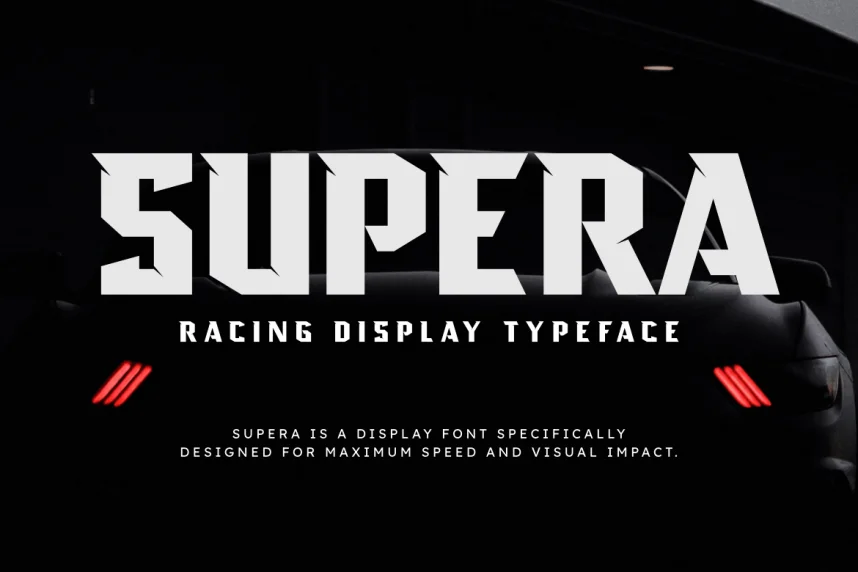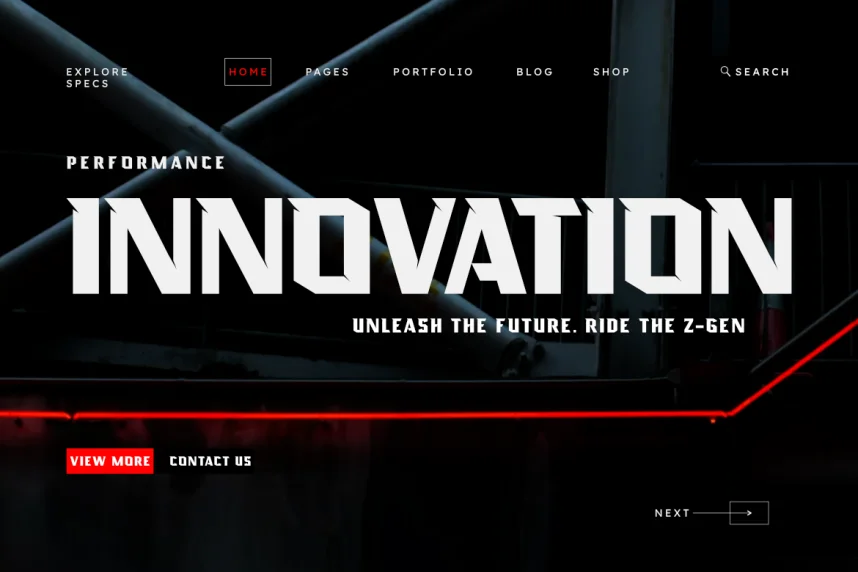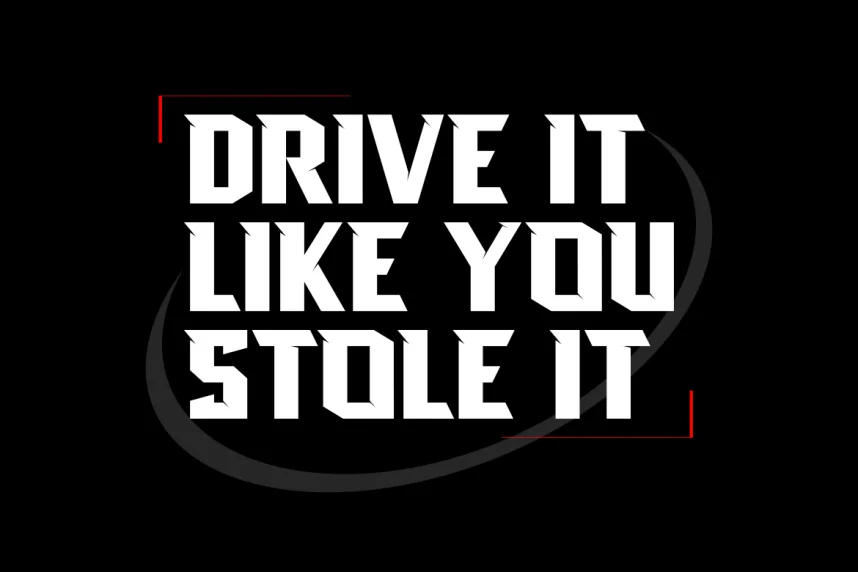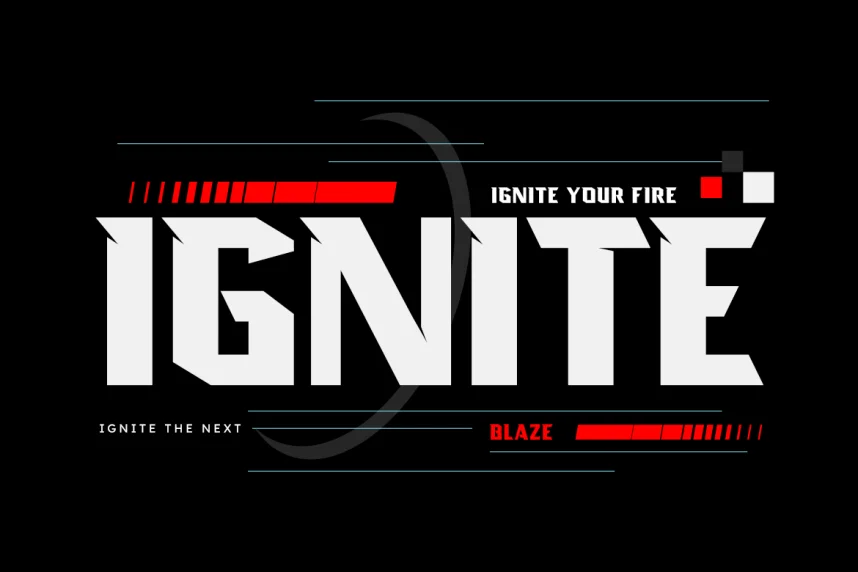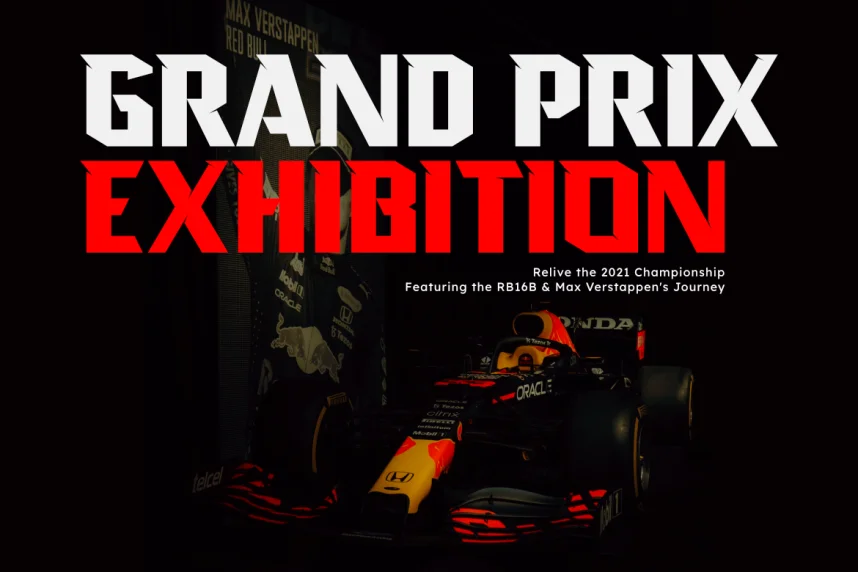
Supera Font helps designers maintain clarity across branding and layout systems where flexibility is required. It supports consistent typography across multiple media.
Supera Font is a sans-serif typeface with clean strokes, balanced proportions, and restrained contrast. The letterforms support readability in both headings and short body text.